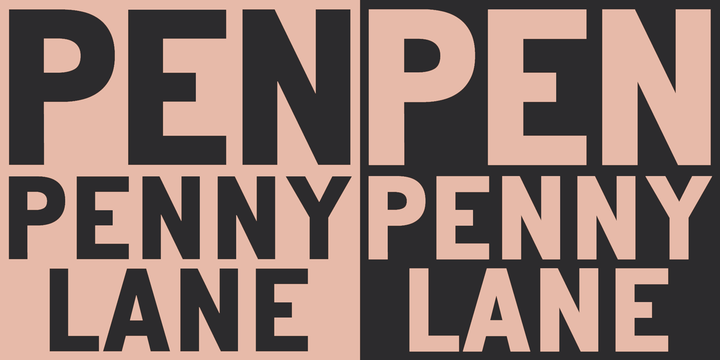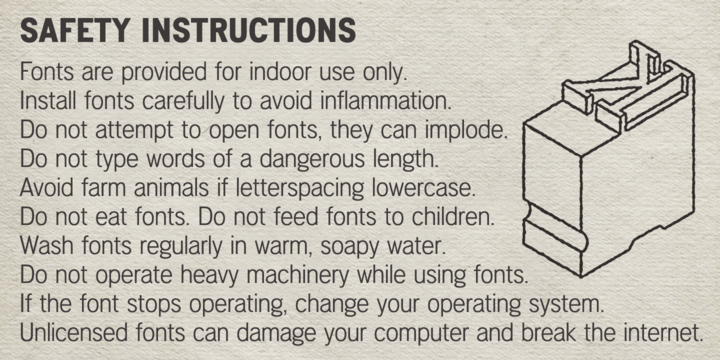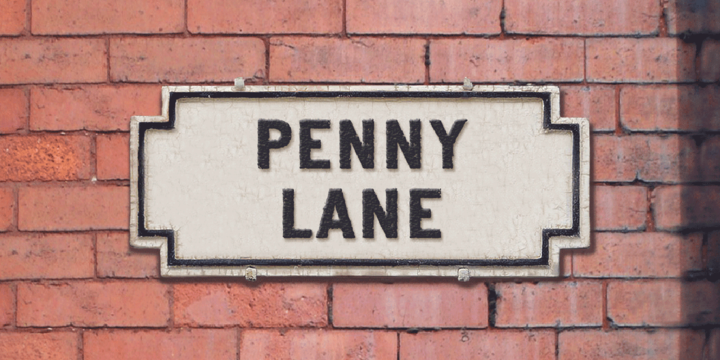
Penny Lane Font Family
PENNY LANE is a sans serif derived from twentieth-century cast-iron signs displaying Liverpool street names. Although the lettering used for vintage street signs varies in width and style, the semi-condensed Penny Lane Bold is fairly typical. The waist of letters like X and Y is positioned on the midline so may appear unusually high, the G is without a crossbar, and pointed characters like the Z might seem at odds with generally grotesque letter shapes